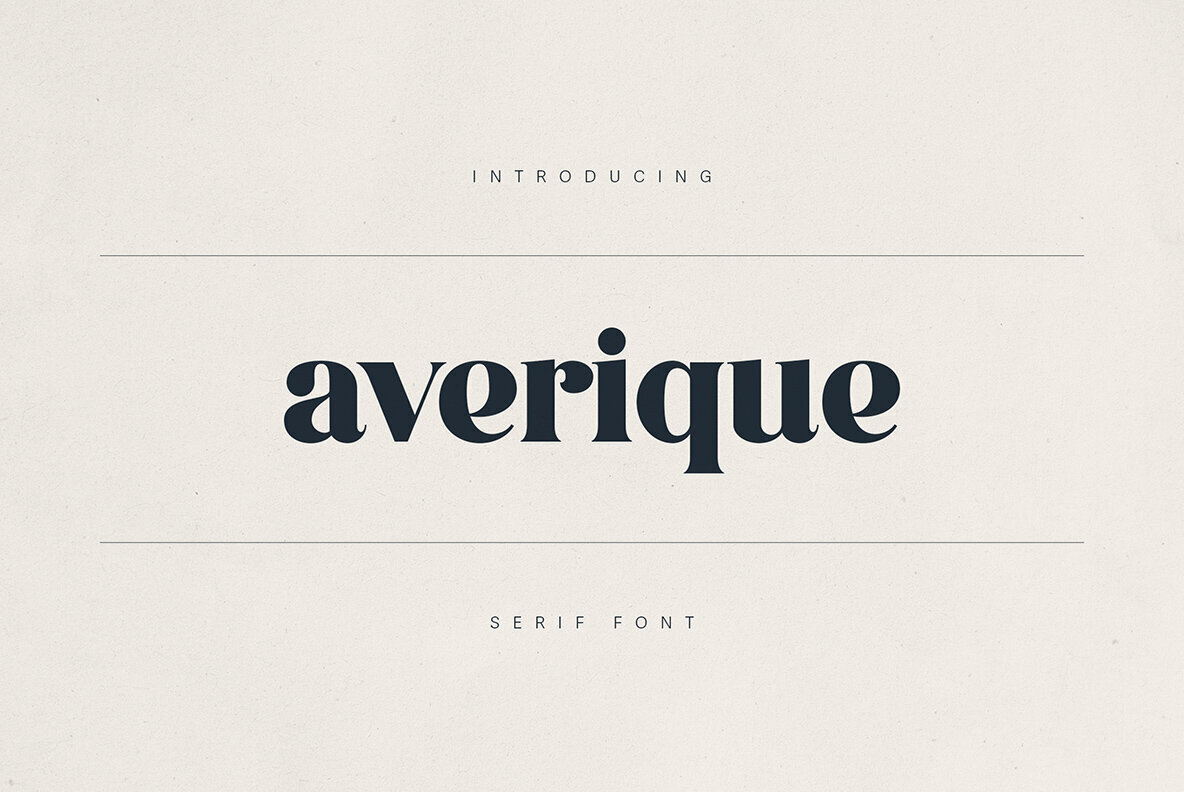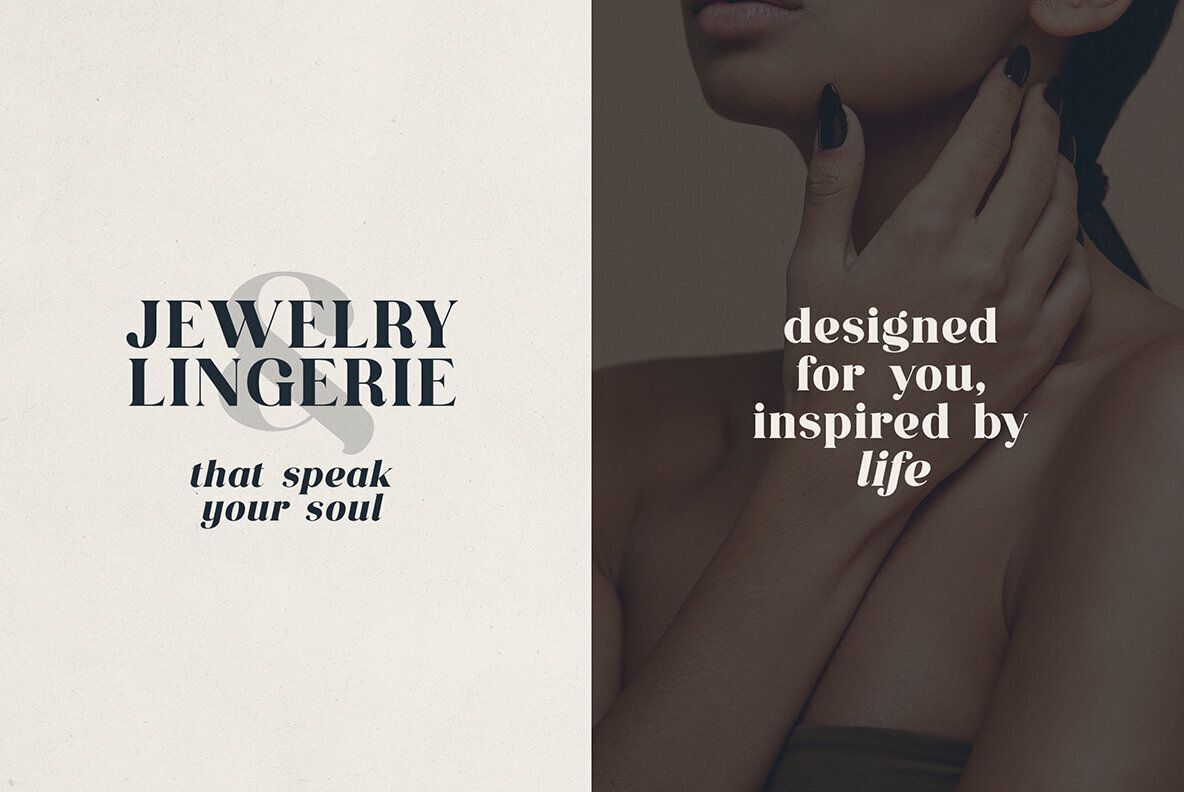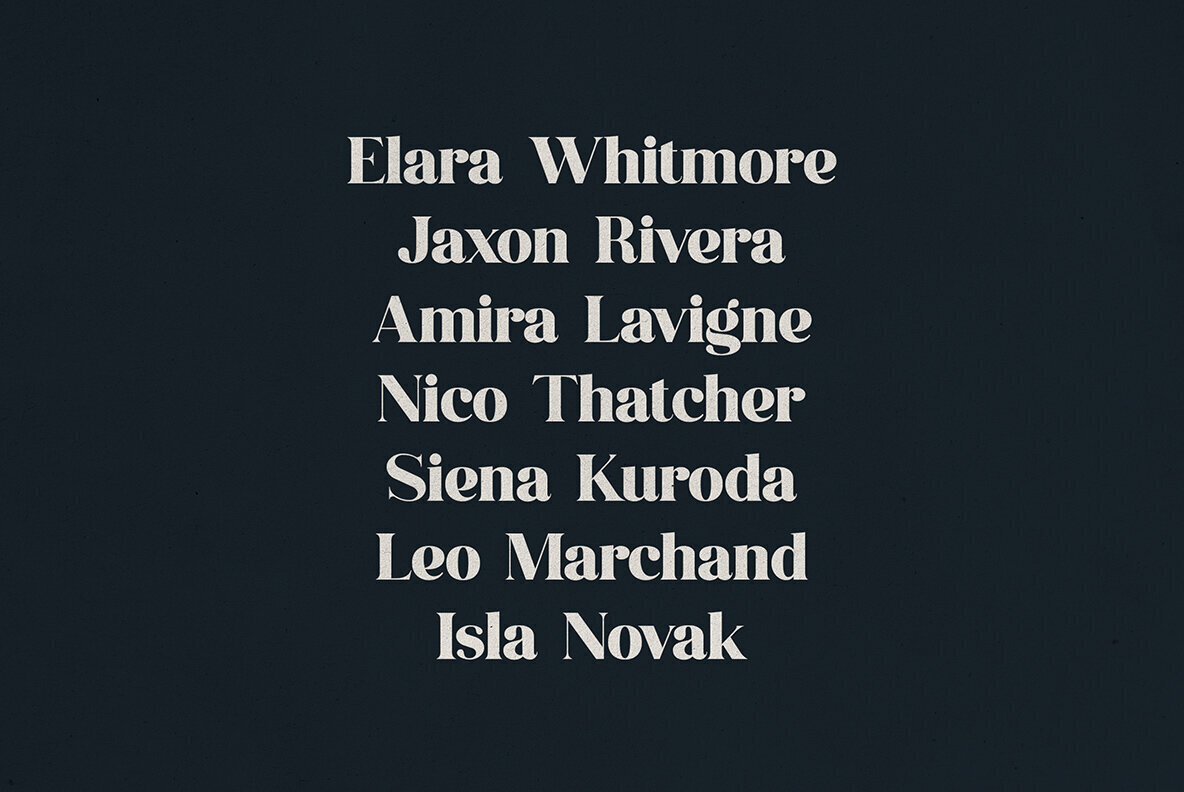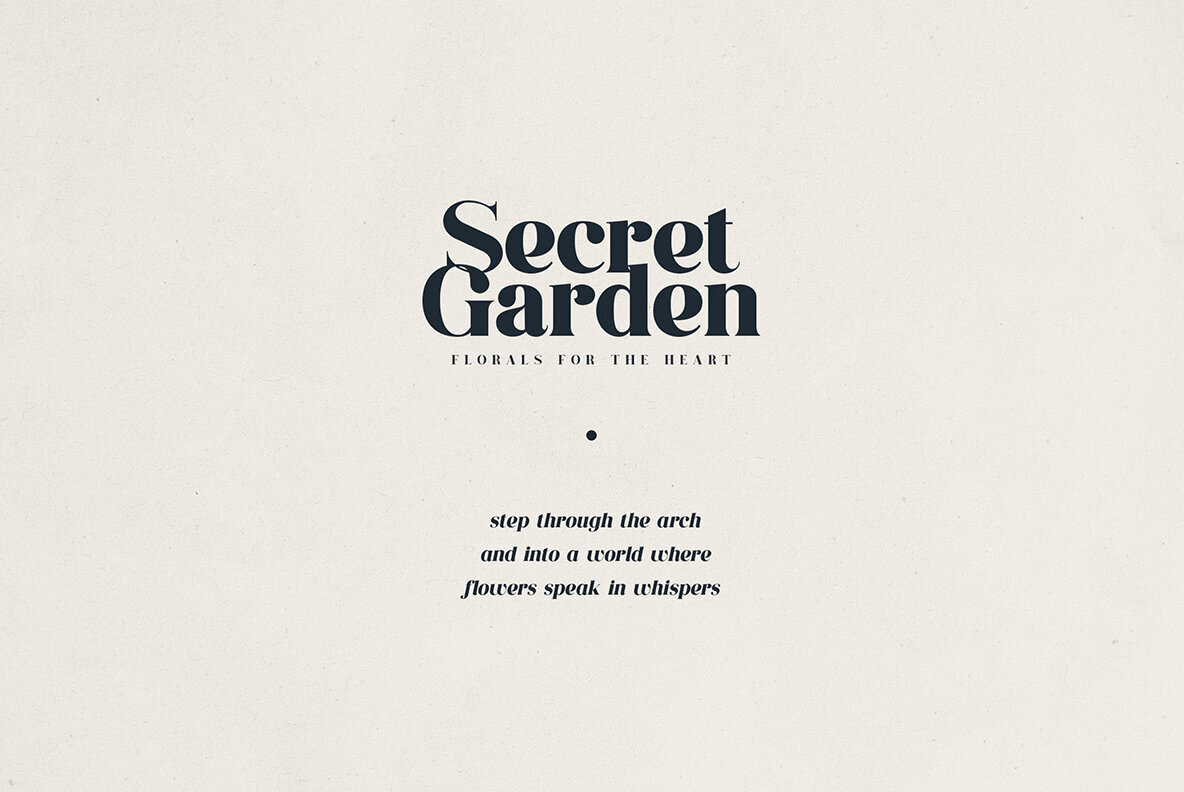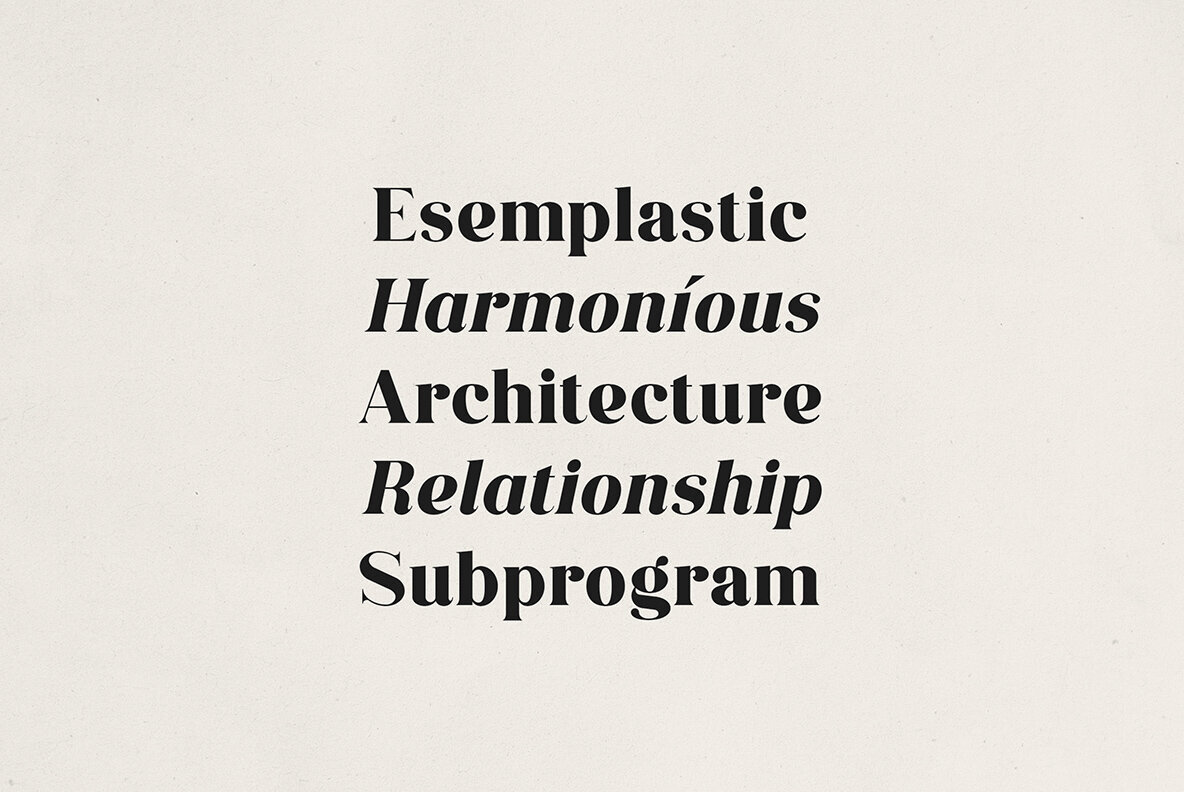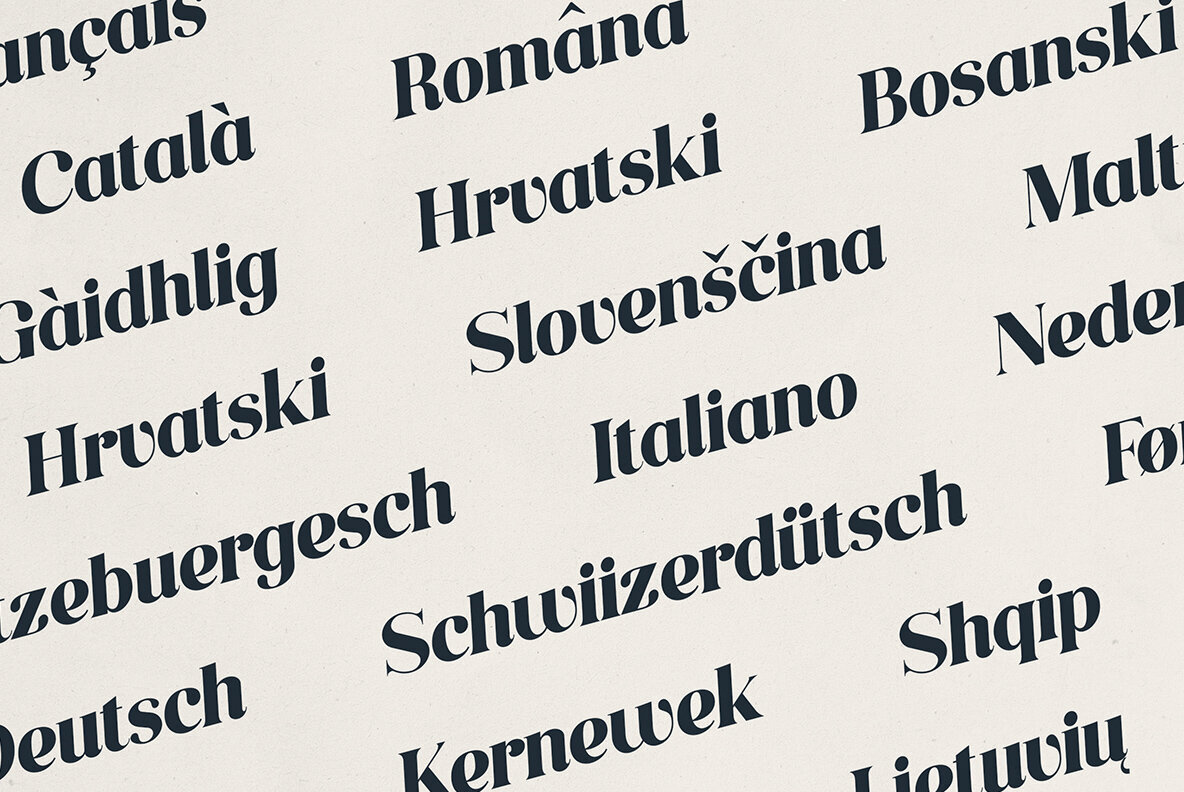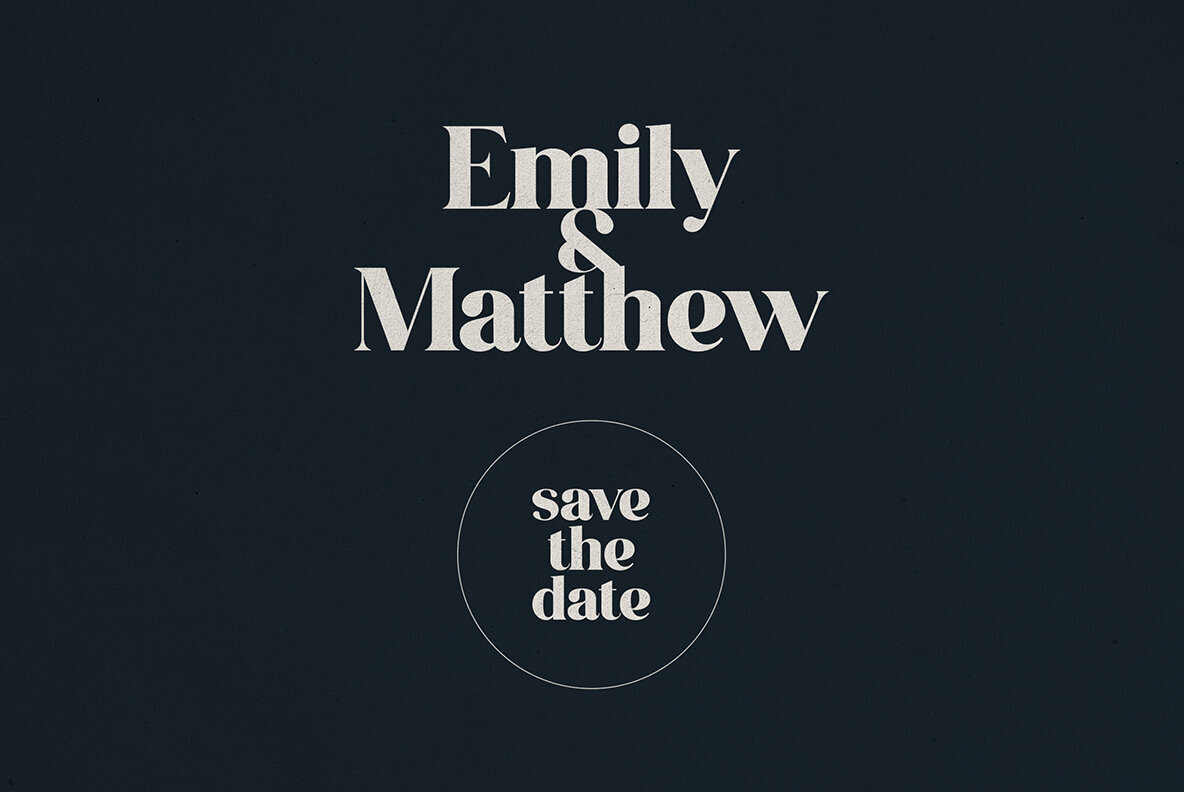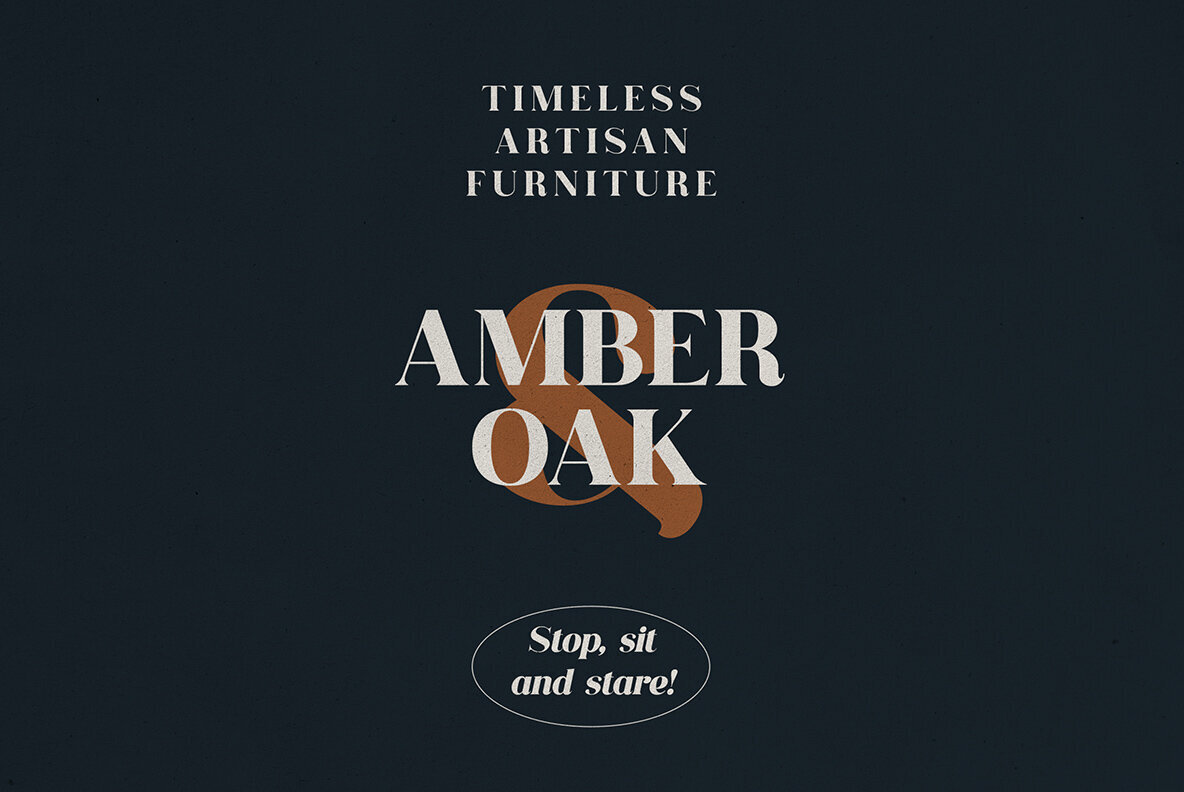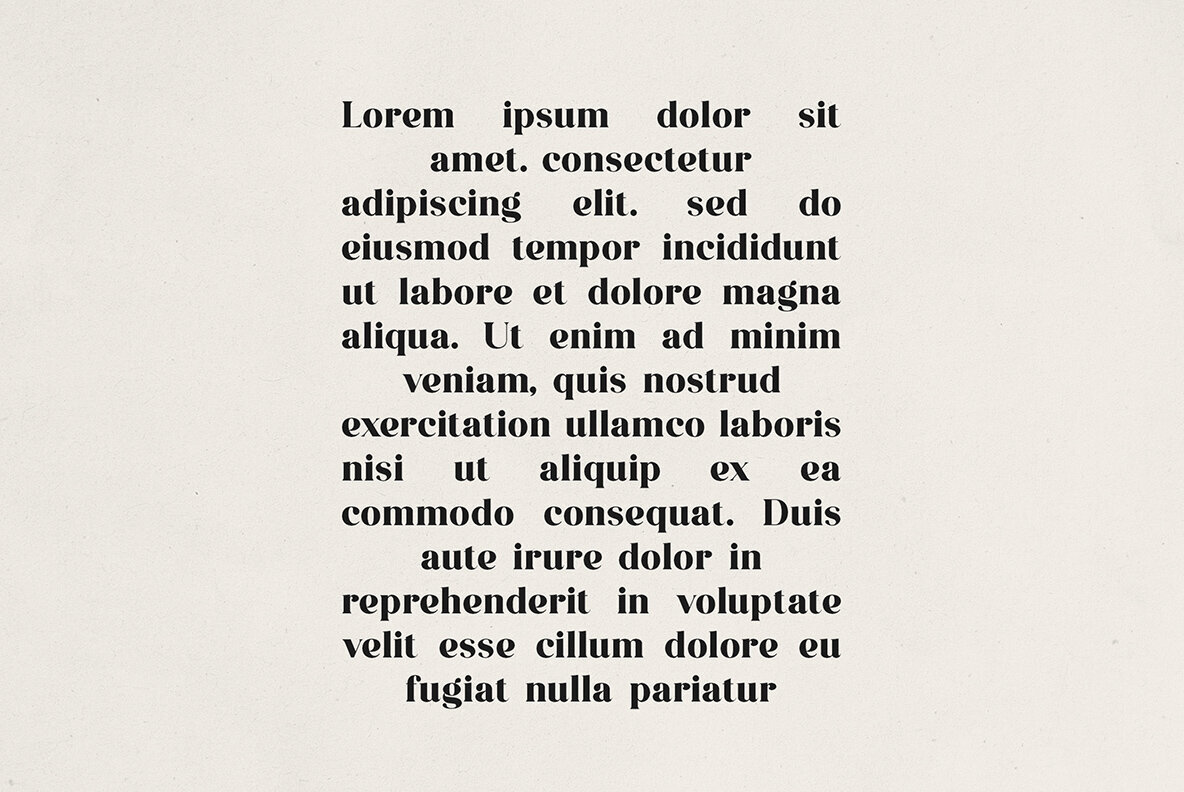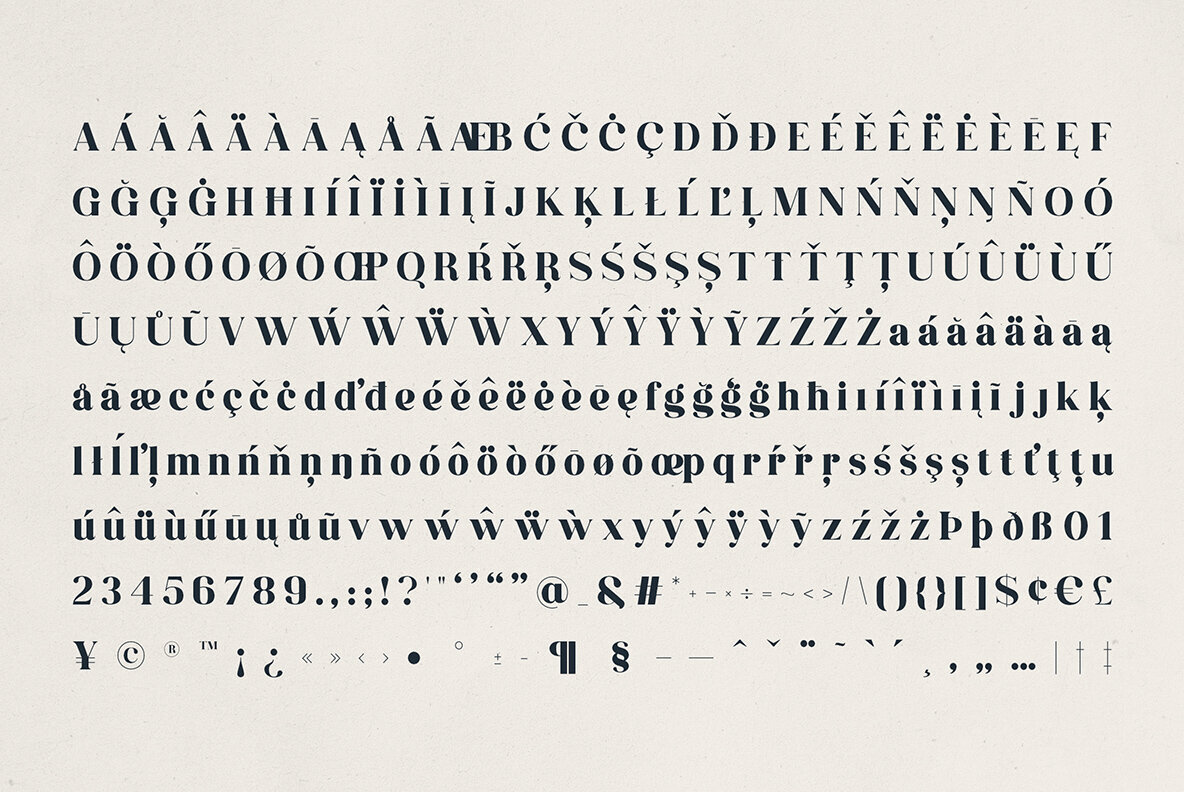
Averique Font
Averique Regular
Averique Italic
Averique is a refined serif font that infuses sophistication and charm into any creative project. With its bold contrast, graceful curves, and distinct character shapes, it seamlessly combines modern elegance with a touch of vintage flair. This makes it ideal for luxury branding, editorial design, packaging, and wedding invitations. The font's beautifully crafted letterforms present a stylish and confident presence, perfect for headlines, logos, and display text. Whether you're developing a boutique brand identity or crafting an enchanting magazine layout, Averique ensures your work stands out with timeless style. Available in a wide range of languages including English, French, German, and Spanish, Averique speaks with sophistication and warmth, making a bold statement in any design.Averique: Elegant Modern Serif Font